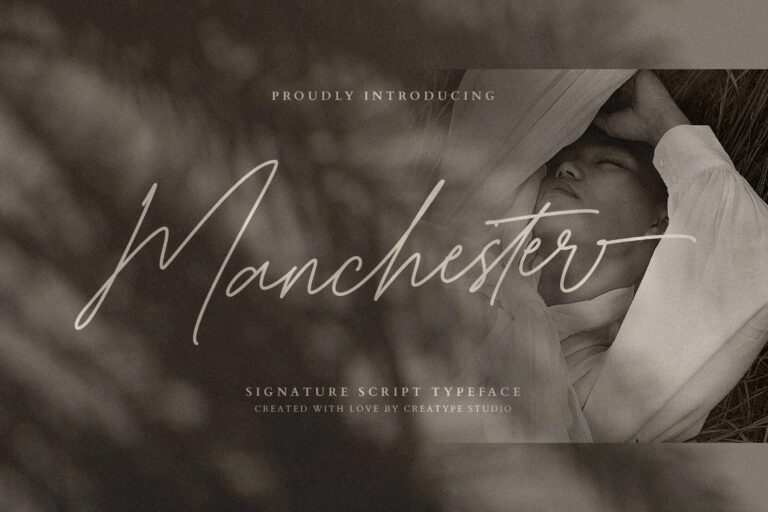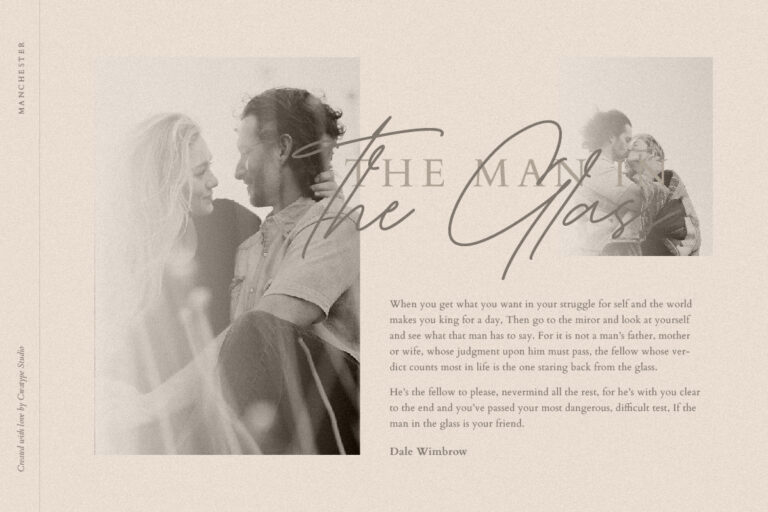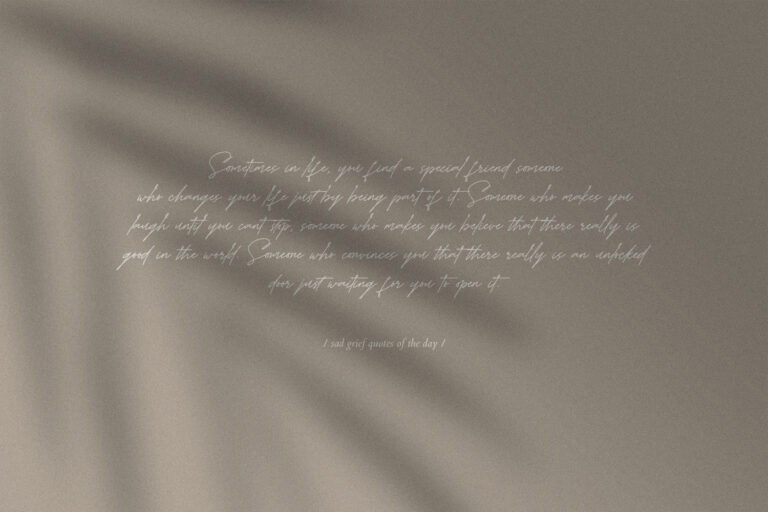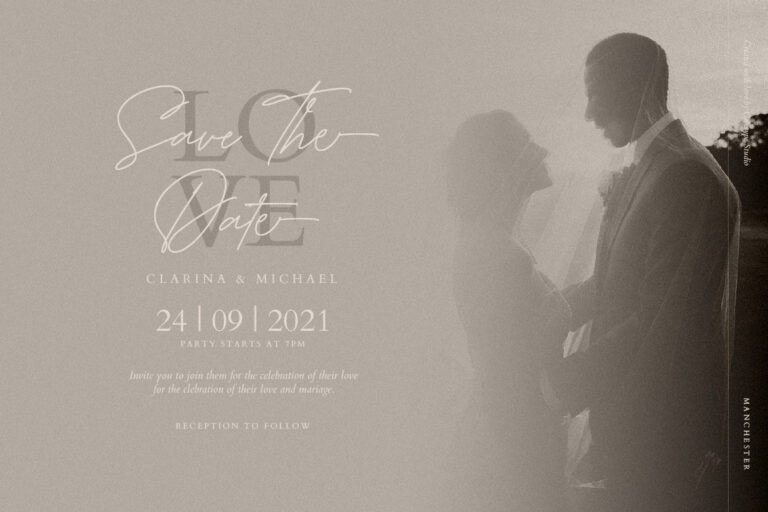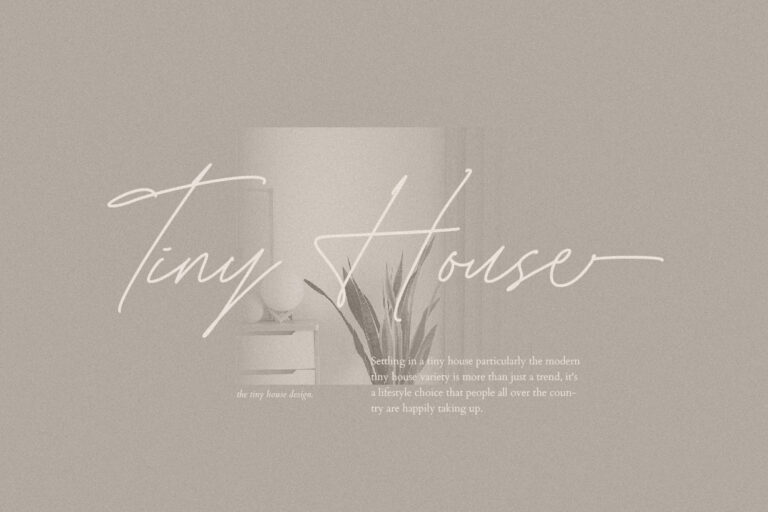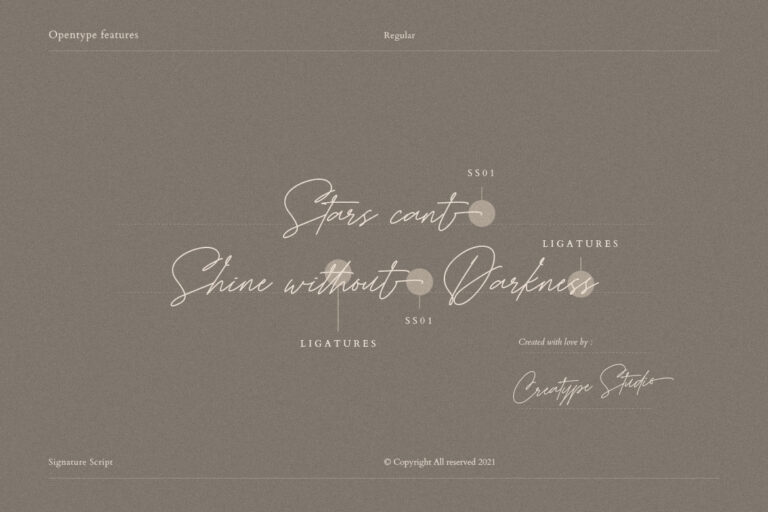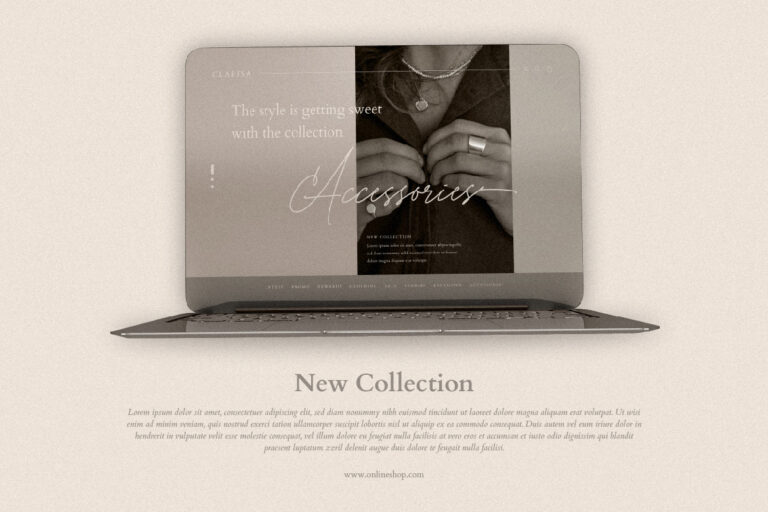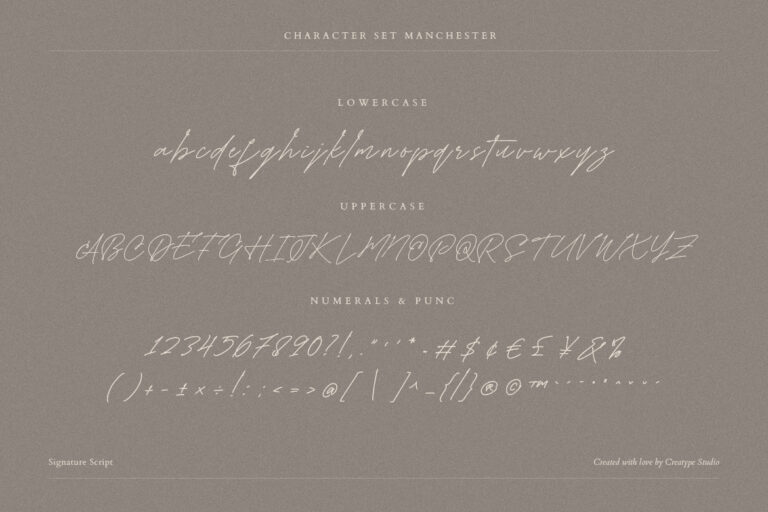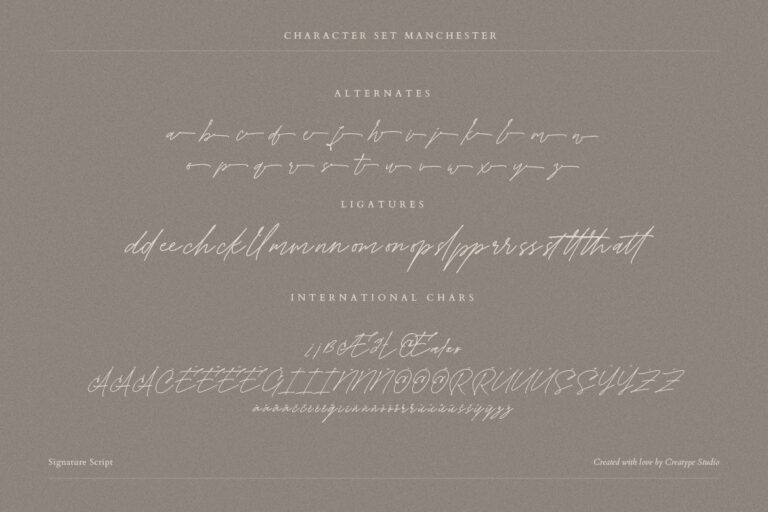
Manchester is a signature script typeface specially made to look so natural. This font has been carefully designed for natural handwritten text, there are 18 ligatures and 25 alternatives to get free-flowing strokes.
Manchester is perfect for branding projects, logo, wedding designs, social media posts, advertisements, product packaging, product designs, label, photography, watermark, invitation, stationery and any projects that need handwriting taste.
Manchester Signature Script Font